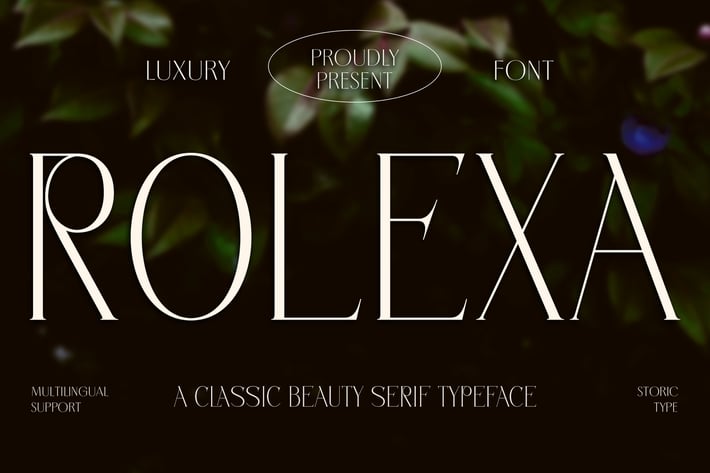
Rolexa- a Classic Beauty Serif Font
Rolexa is a new carefully crafted serif fonts. The Ideas of this fonts are from wide range of reference, from classic, until the modern era. So the looks of this fonts must be in the wide range of the reference above. It’s Versatile and Luxury feel that you get in Rolexa Typefaces. Immerse your design in the world of elegance and refinement with our premium serif luxury typeface, designed to bring a sense of grandeur to your creative endeavors. Experience the epitome of luxury in typography with our meticulously crafted serif typeface, exuding timeless beauty and grace for your high-end designs.